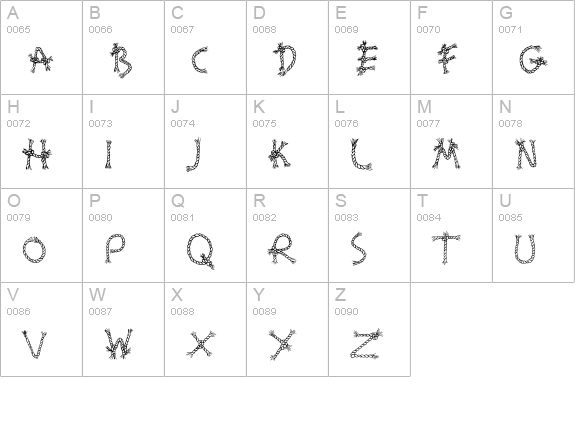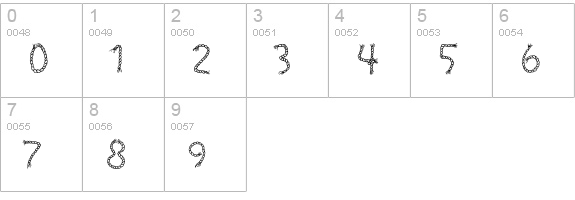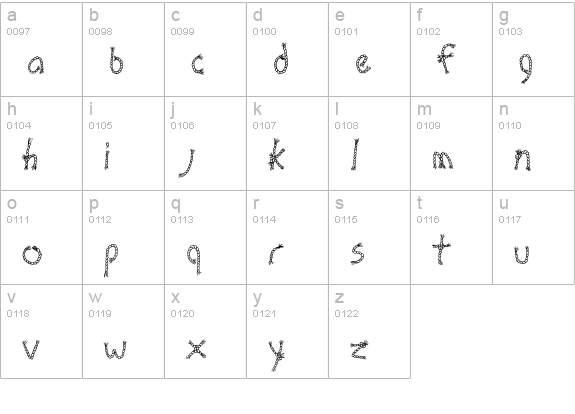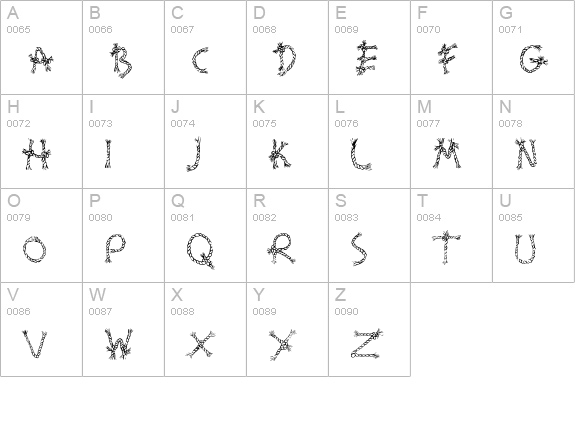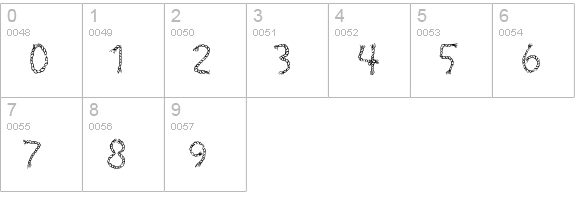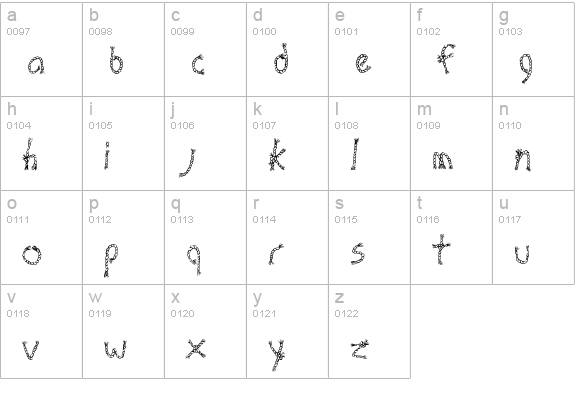
Bound AOE font is a stunning display typeface that exudes elegance and sophistication. With its intricate details and unique design, this font is sure to make a statement in any project. The flowing curves and sharp edges create a harmonious balance that will captivate the eyes of viewers. Whether you're designing a logo, poster, or branding materials, Bound AOE font is the perfect choice to add a touch of class and style. The best part? Bound AOE font is completely free to download at FontsMarket.com. This means you can easily access this amazing font without having to spend a dime. Don't miss out on the opportunity to enhance your designs with this beautiful typeface. Download Bound AOE font today and elevate your creative projects to new heights.